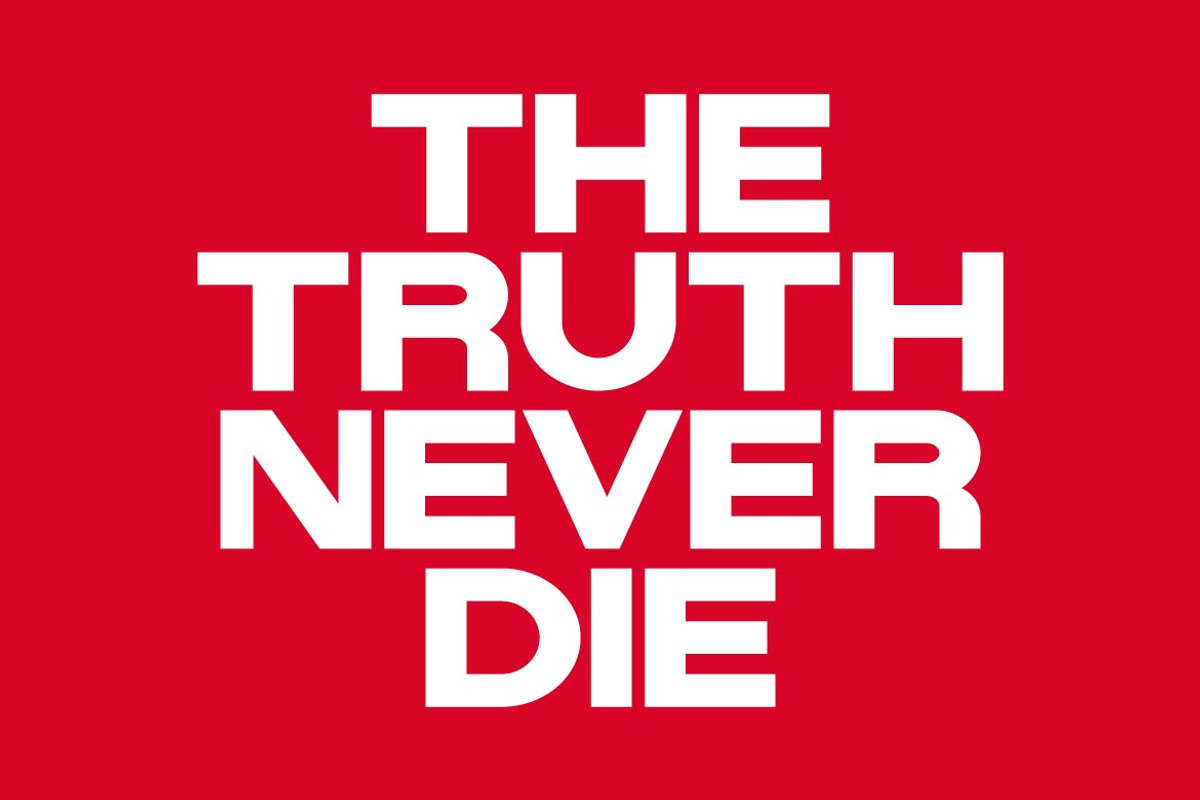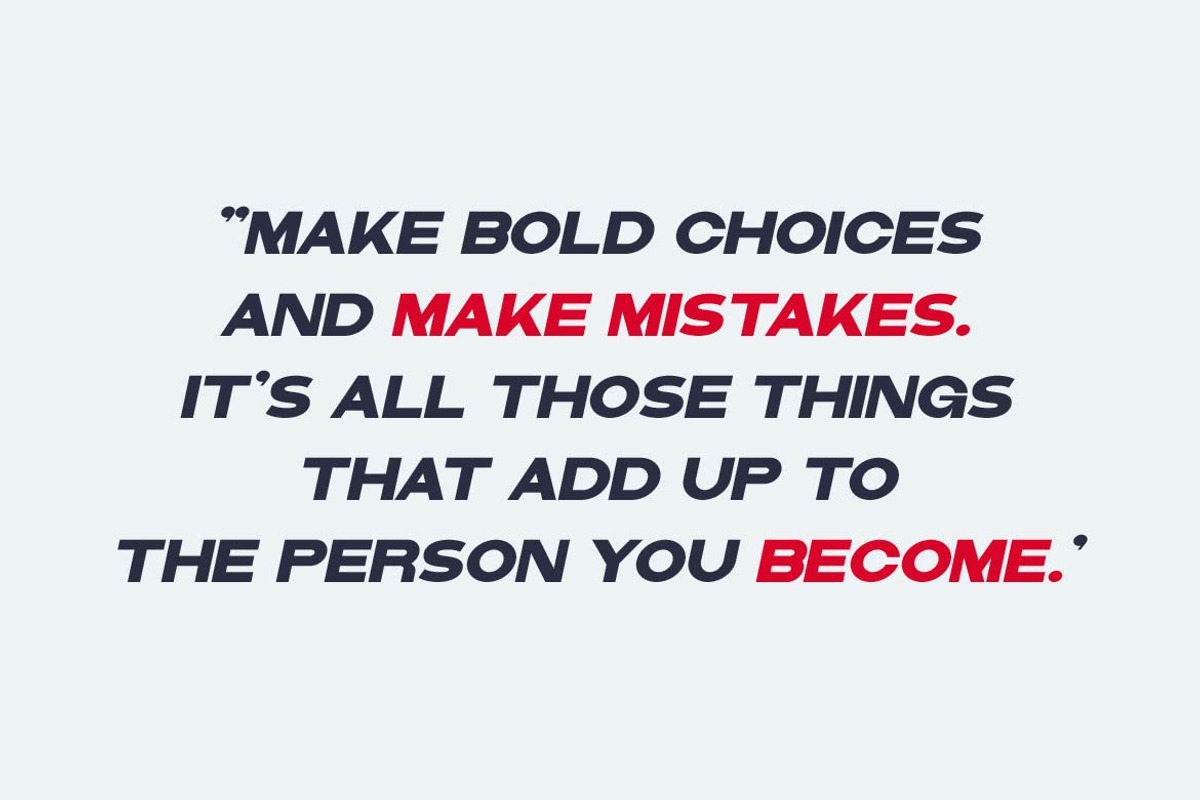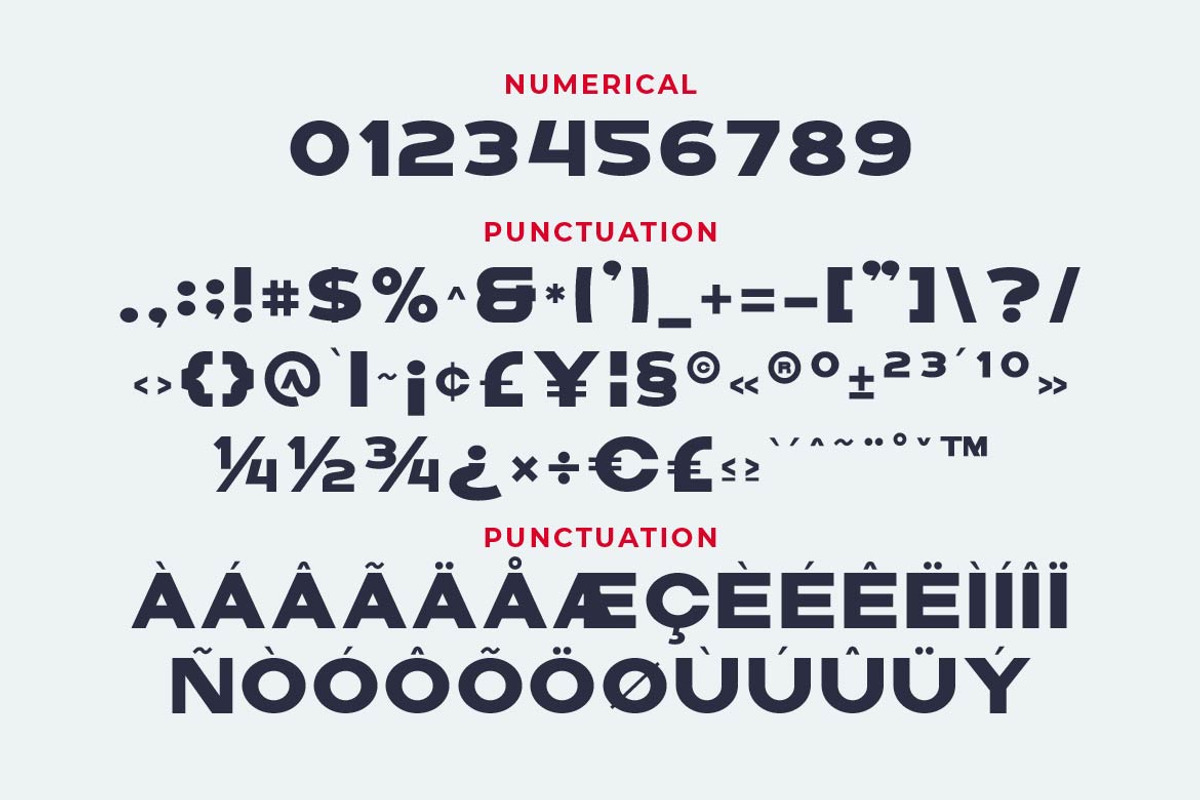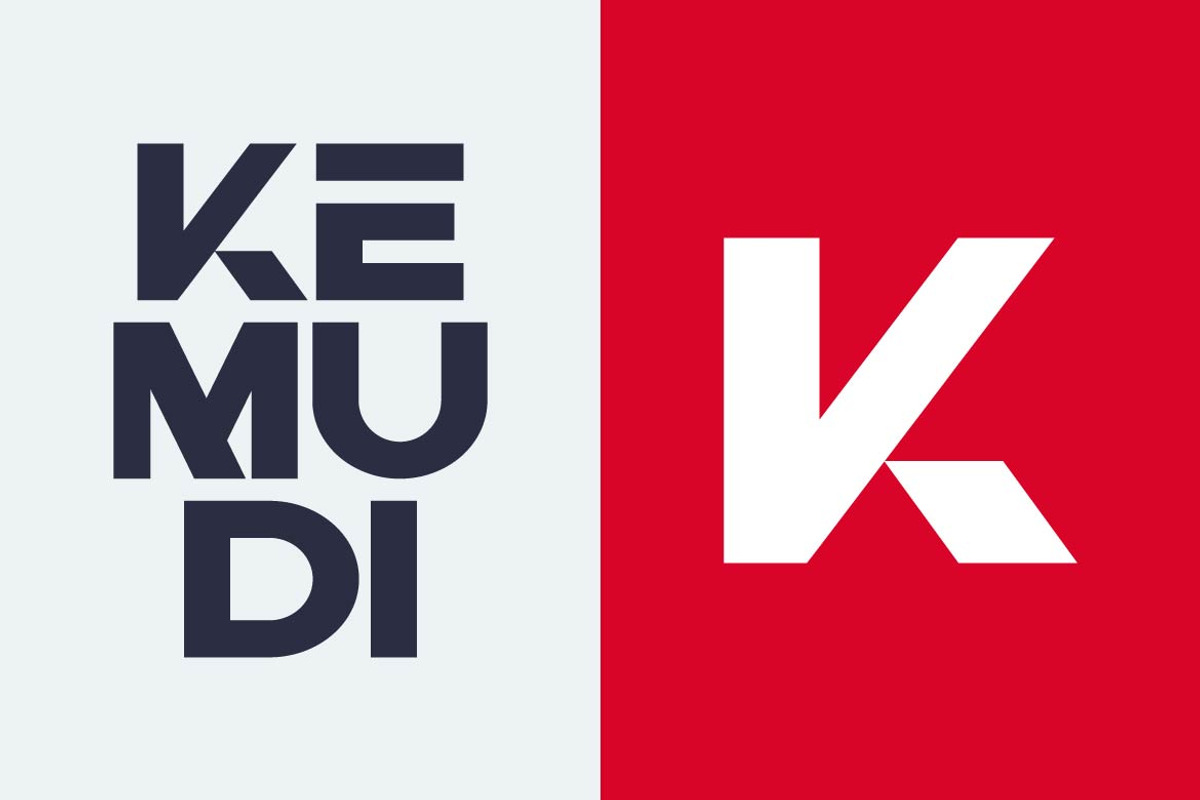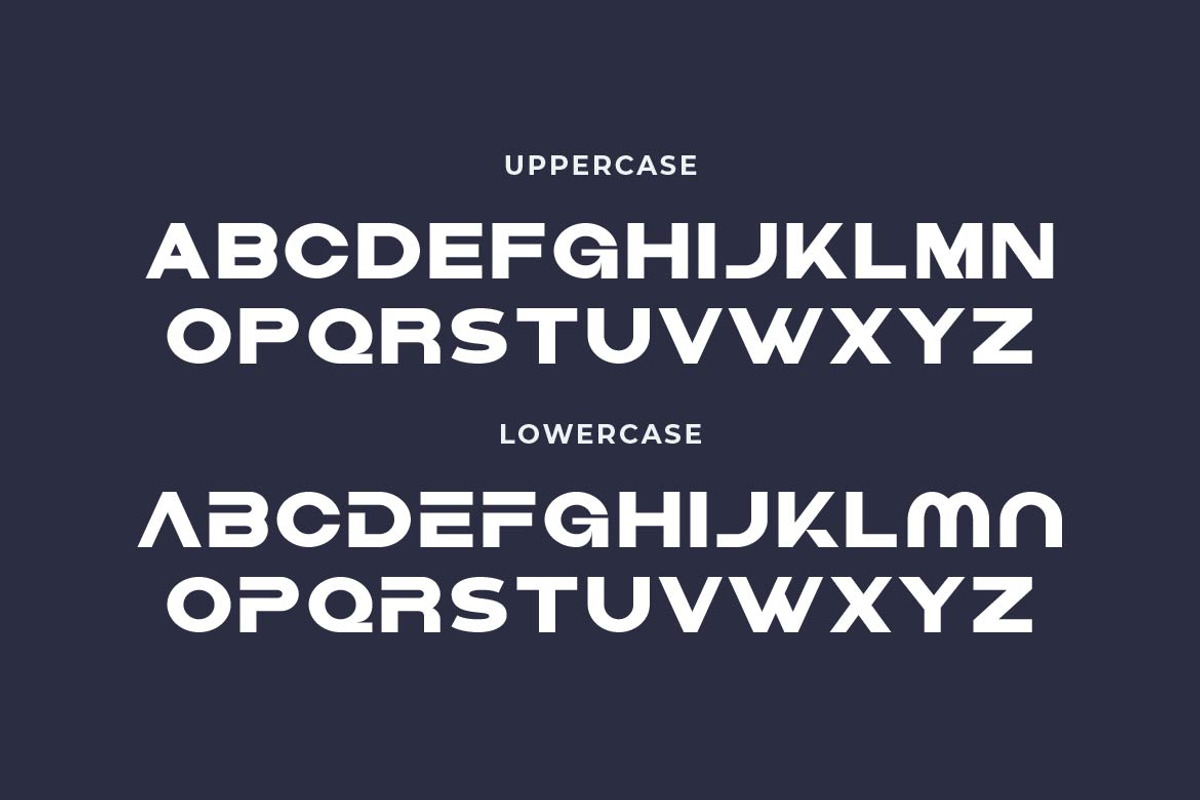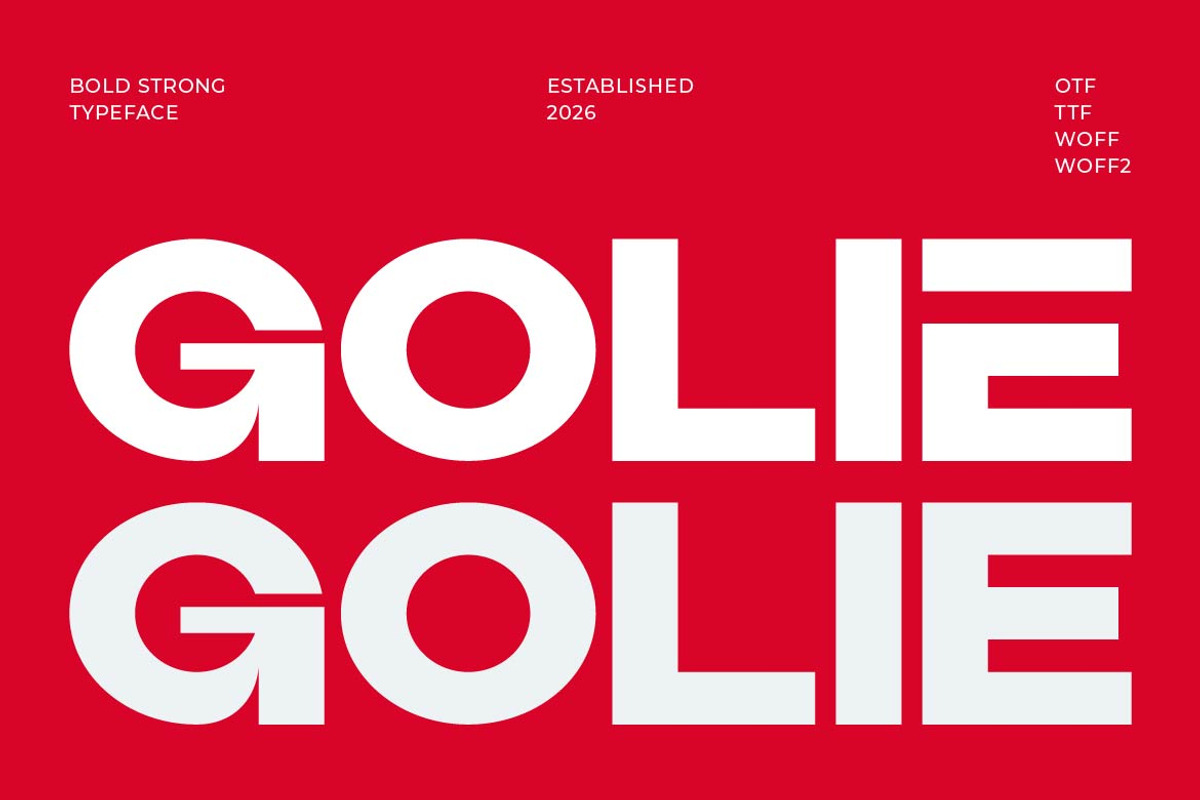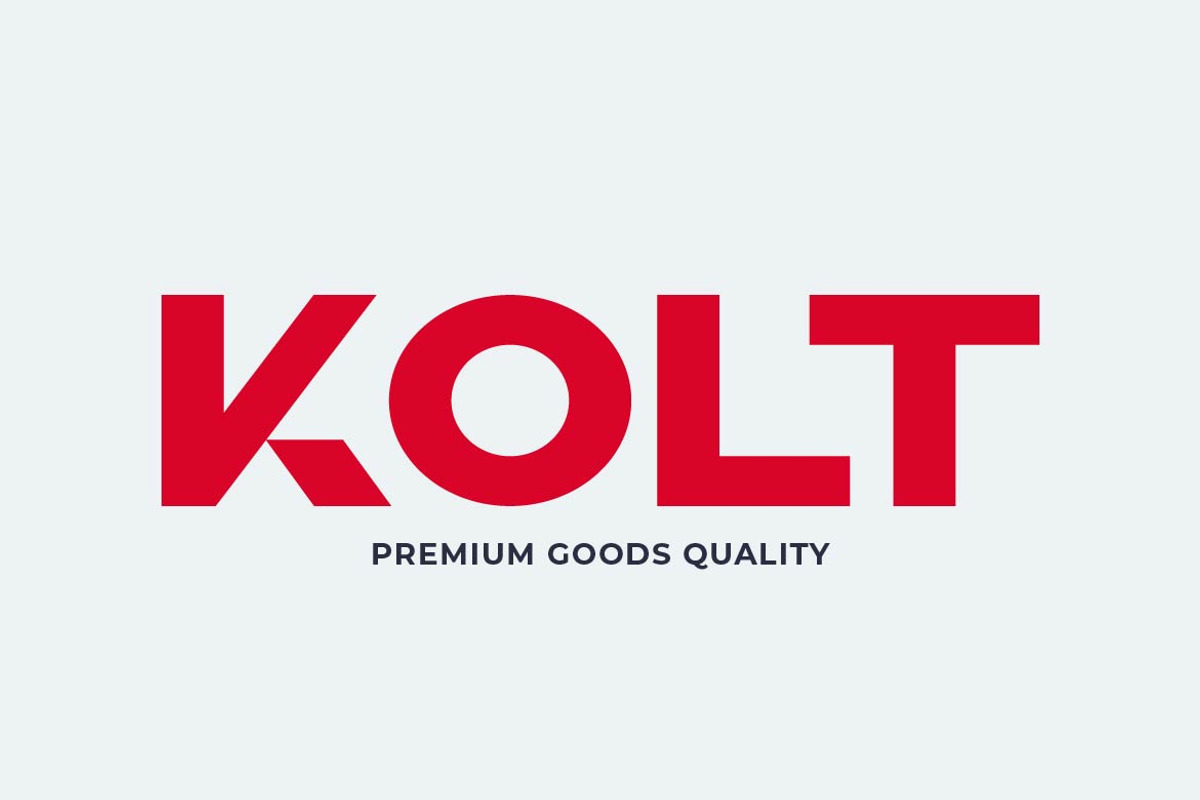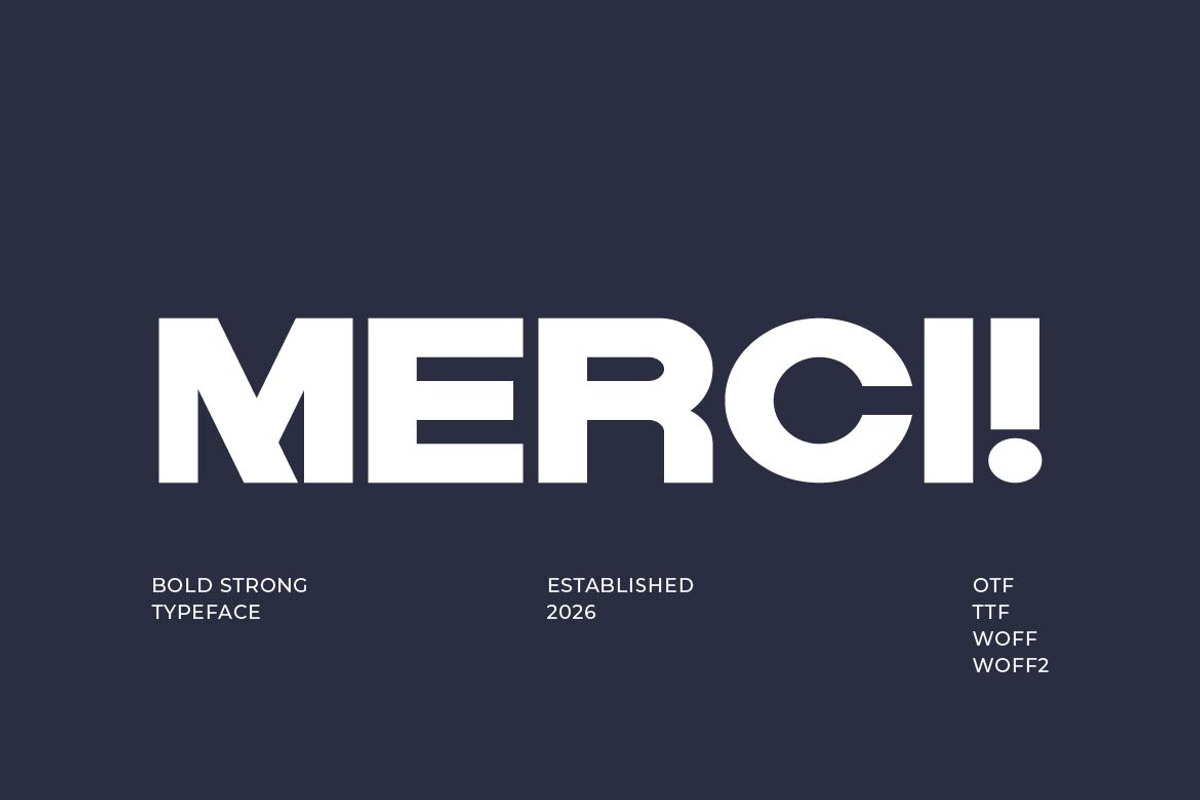
Golie - Heavy Bold Font
Golie is a bold slab serif typeface designed to deliver strength, stability, and strong visual impact. With thick strokes, solid slab serifs, and confident letterforms, Golie creates a powerful presence in any design.